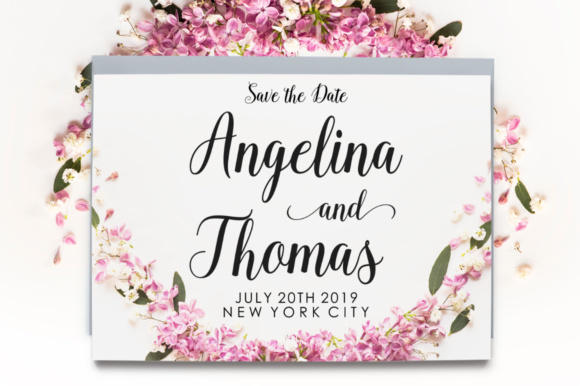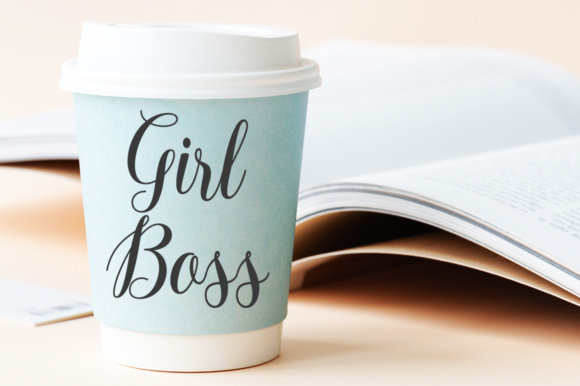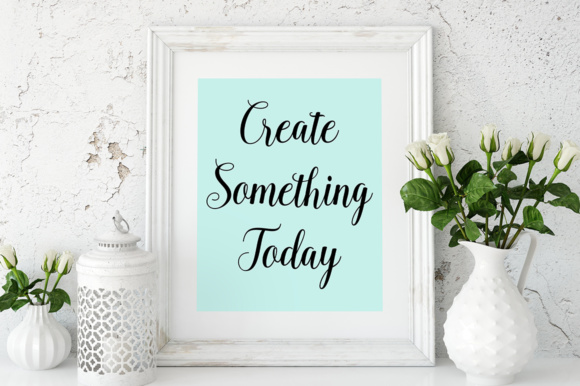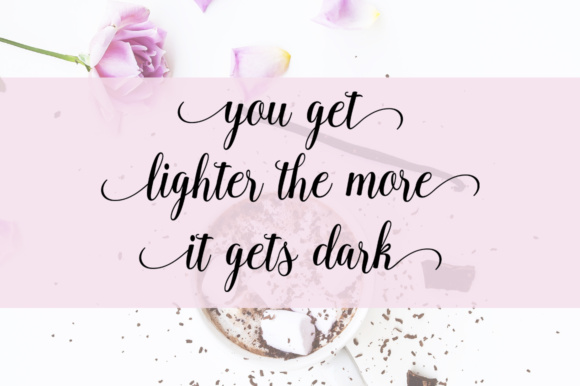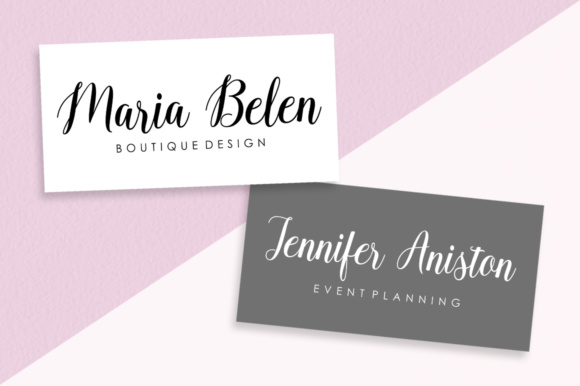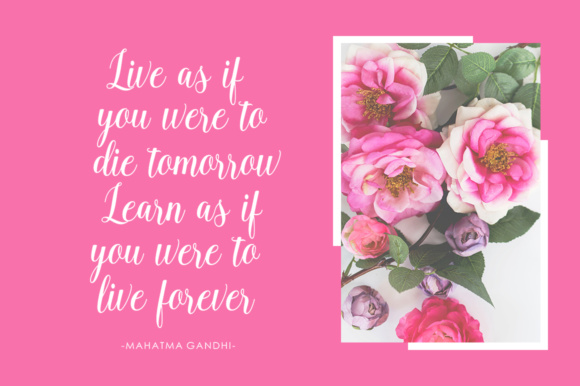
The Ballerina Script Font: A Designer’s Dream Come True
I’ll never forget the time I was working on a wedding invitation project, and my client asked for a font that was “elegant, yet playful.” I scoured the internet, trying out font after font, but nothing seemed quite right. That was until I stumbled upon the Ballerina Script font. With its modern calligraphy style, beautiful swashes, and casual charm, it was the perfect fit. In this article, I’ll share my love for this versatile font, its features, and how to make the most of it in your designs.
- ✨ Beautiful, modern calligraphy style that’s perfect for a variety of design projects
- ✅ Elegant swashes that add a touch of sophistication to any design
- ✅ Highly versatile and can be used for logos, product packaging, wedding invitations, branding, headlines, signage, labels, signatures, book covers, posters, quotes, and more
- ✅ Easy to read and understand, making it perfect for body text and headlines
While Ballerina Script is an amazing font, there are a few things to keep in mind:
- ⚠️ The font can be a bit over-the-top, so use it sparingly and balance it with simpler fonts
- 🤔 Some swashes may not work well with certain words or phrases, so experiment with different combinations
The Story Behind Ballerina Script
Ballerina Script was designed by a team of talented typographers who wanted to create a modern calligraphy font that was both elegant and playful. Inspired by the world of dance and performance, they crafted a font that was perfect for creative projects and everyday use. With its beautiful swashes and stylistic alternates, Ballerina Script is a true showstopper.
Q: Is Ballerina Script easy to read?
A: Yes, Ballerina Script is a highly legible font that’s perfect for body text and headlines. However, it’s always a good idea to test the font with your specific design to ensure it’s working well.